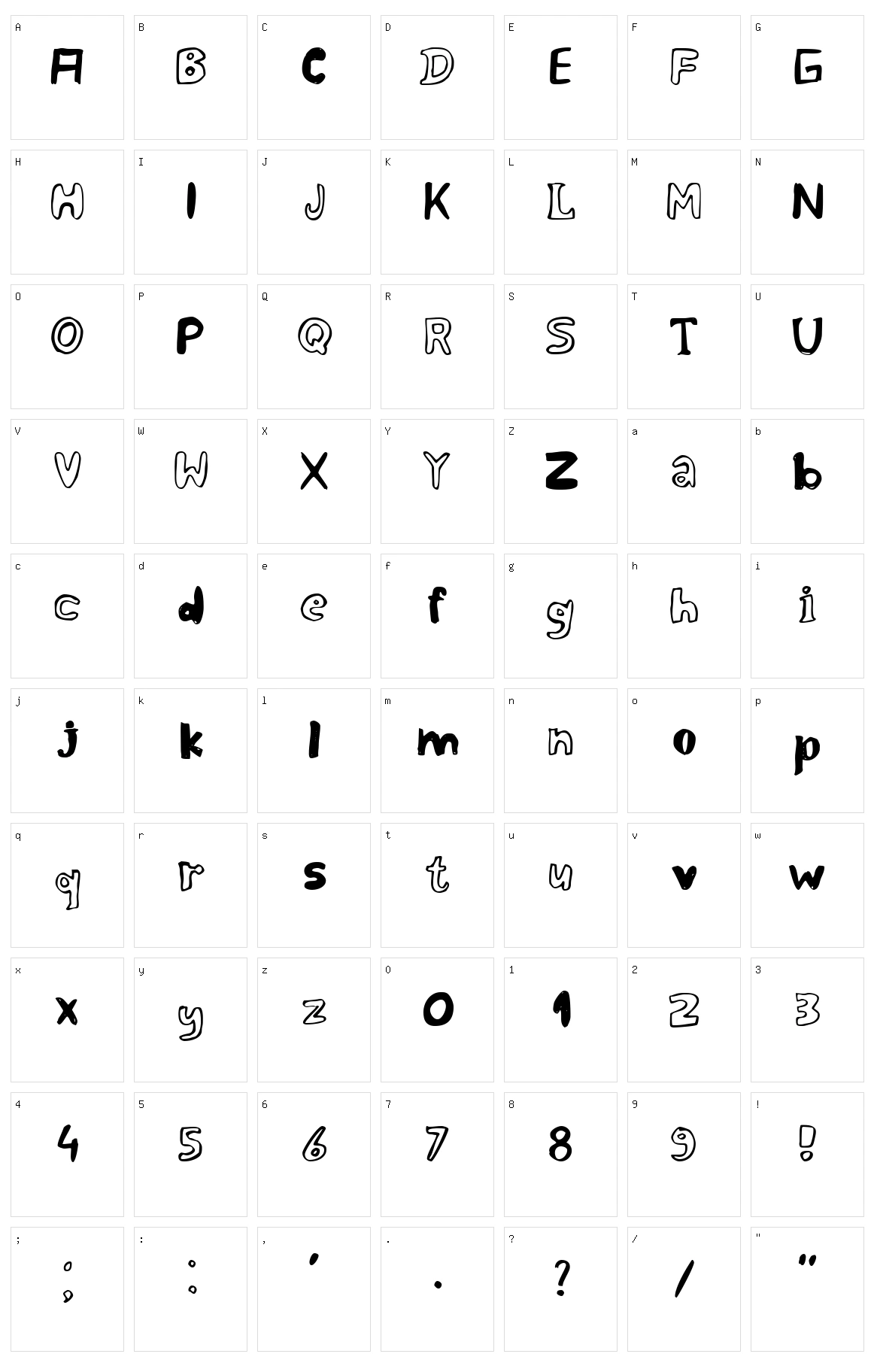
The free font Sex and Breakfast is carefully designed by Vladimir Nikolic, showcasing a thoughtful balance of creativity and usability and falls under the Cartoon font style. When you download the ZIP file, it contains only 28.46 KB of font files, making it lightweight and quick to download. Please review the license details below to understand permitted usage and distribution rights. If license information is not available, we recommend using this font for personal projects only or contacting the author directly for commercial usage permissions.